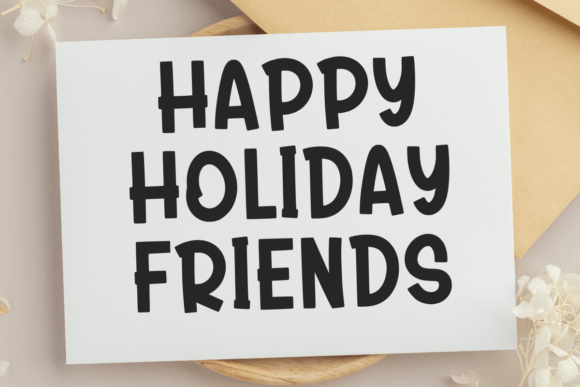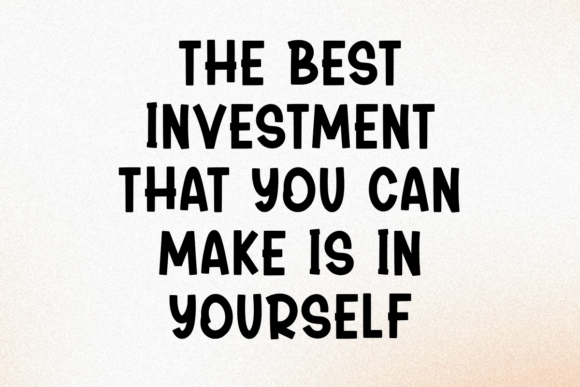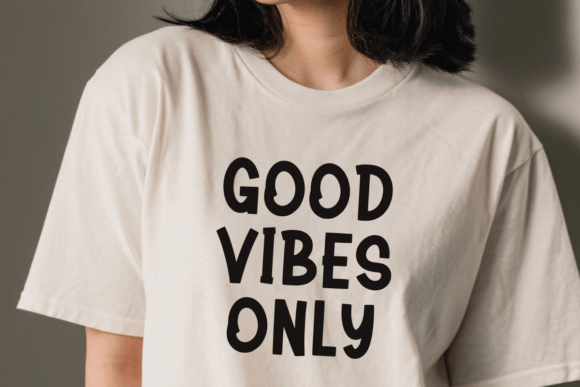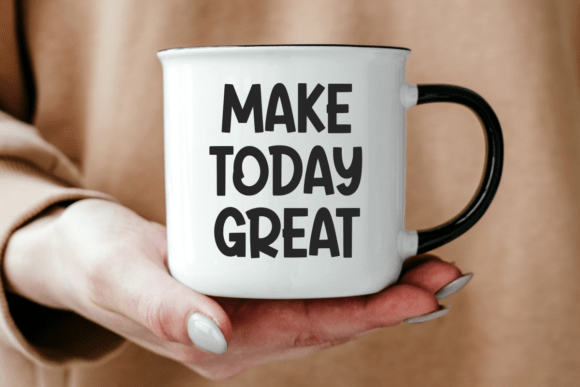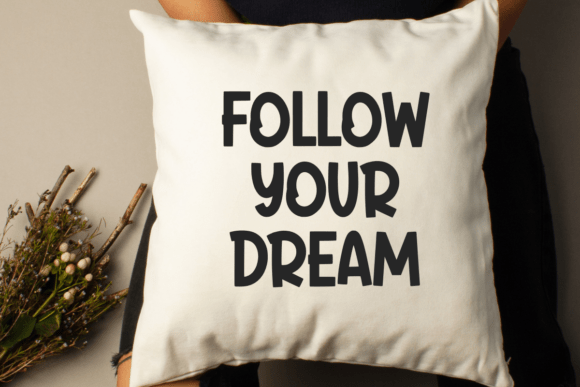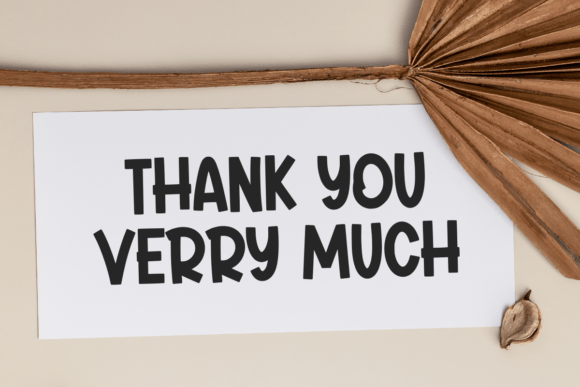
Get Ready to Add Some Personality to Your Designs
As a designer, there’s nothing quite like the thrill of brainstorming a new project and envisioning the perfect font to bring it to life. Perhaps it’s a whimsical Easter-themed poster or a fun and playful back to school invitation. Whatever the project, the right font can make all the difference in capturing the perfect tone and style.
That’s where the charming Charm Thick Font comes in – a bold and playful display font designed to add a friendly touch to any project. Whether you’re working on a wedding, party decorations, or kids-related designs, this font is sure to bring a smile to your audience’s face. With its versatility and charm, it’s no wonder designers are turning to the Charm Thick Font to add some personality to their designs.
Charm Thick Font Key Features
- Unique Characteristics: This font features a distinctive, thick and bold design that adds a touch of elegance and sophistication to any text-based project.
Charm Thick Font Review
Overall, I’d say the Charm Thick Font has some nice qualities, but also a few drawbacks that might affect its usability in certain projects. ✨
- The font’s unique, bold design makes it perfect for headings and titles, adding a touch of elegance and sophistication to any layout.
- Its thickness creates a sense of depth and dimensionality, making it stand out on the page.
- The font’s versatility allows it to be used in a wide range of applications, from modern to vintage-inspired designs.
- ⚠️ The font can be difficult to read in smaller sizes, which may require adjusting the font size or using it in combination with a secondary font for body text.
- ⚠️ The font’s bold design can sometimes make it feel overwhelming or busy, especially when used extensively throughout a design.
Overall, I’d give the Charm Thick Font 3.5 out of 5 stars. While it has some great qualities, its limitations may make it less suitable for certain projects. However, with careful consideration and balancing, it can be a fantastic addition to the right design.
The Charm Thick Font is ideal for creating bold and eye-catching headlines, titles, and captions. Use it to add a touch of elegance and sophistication to your designs.
Alternatives to Charm Thick Font for Designers
Great Vibes Font is a modern script font designed by Handmade-Type. It is ideal for use in titles, headings, and quotes that require a touch of elegance and sophistication. This font is perfect for designers looking to create a unique and eye-catching visual identity. Great Vibes Font is more cursive than Charm Thick Font, making it suitable for projects that require a flowing, handwritten feel.
Cream Soda Font is a fun, playful script font designed by Laura Worthington. It is perfect for use in advertisements, social media graphics, and other projects that require a lively and approachable tone. Compared to Charm Thick Font, Cream Soda Font is more whimsical and has a bolder, more dramatic flair. It is ideal for designers looking to add a touch of personality and charm to their designs.
Playball Font
Playball Font is a fun, energetic script font designed by Sudtipos. It is perfect for use in sports-related projects, children’s books, and other projects that require a playful and youthful tone. Compared to Charm Thick Font, Playball Font is more informal and has a more casual feel. It is ideal for designers looking to create a fun and engaging visual identity.